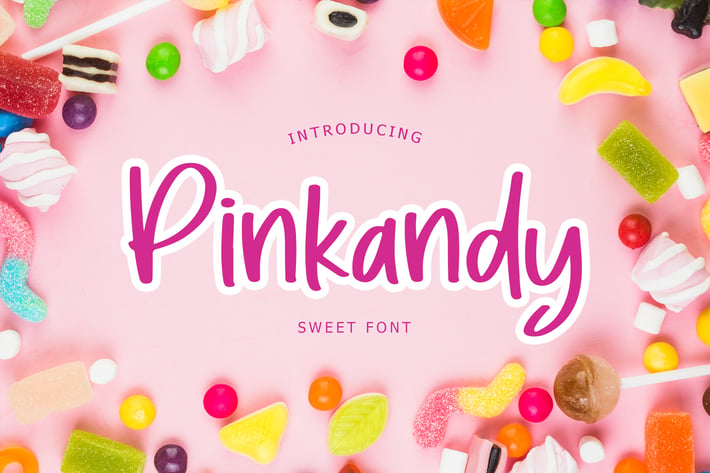
Pinkandy Sweet Kids Display Font
Pinkandy Sweet Kids Display Font can make your text appear playful, excited, and modern! it also fits for Travel and nonformal company branding.
Pinkandy is perfect for cute and playful branding projects, logo, petshop and animal-related projects, social media posts, advertisements, product packaging, T-shirt design, product designs, label, photography, watermark, invitation, stationery, and any projects.